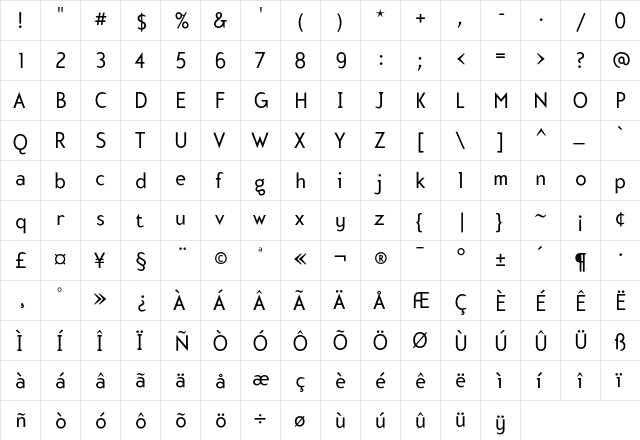
Mercury Regular
Design Context for Mercury Typeface
Mercury takes a measured approach to typography — its balanced proportions and neutral character make it a reliable workhorse for both digital and print work.